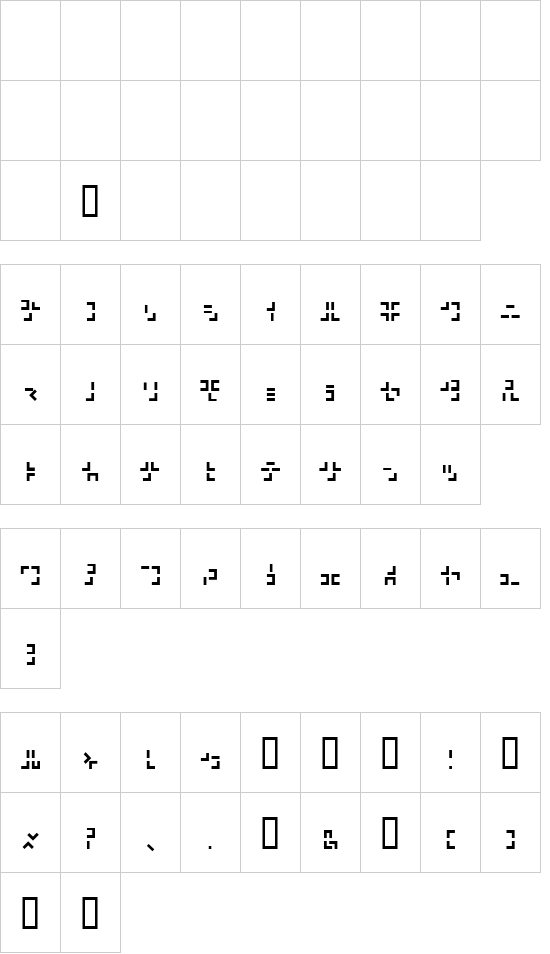
321
321 is a sci-fi display font with angular, countdown-ready letterforms that feel fast and futuristic. The characters lean into sharp cuts and tapered edges, suggesting speed lines and digital readouts ticking down to launch. It reads quick and high-tech.
Use 321 for racing game art, tech event posters, electronic music covers, and bold launch graphics. It also suits countdown banners and esports branding. 321 is free to download as a TrueType file, and you can preview it with your own text to see how the angular letterforms render your wording.